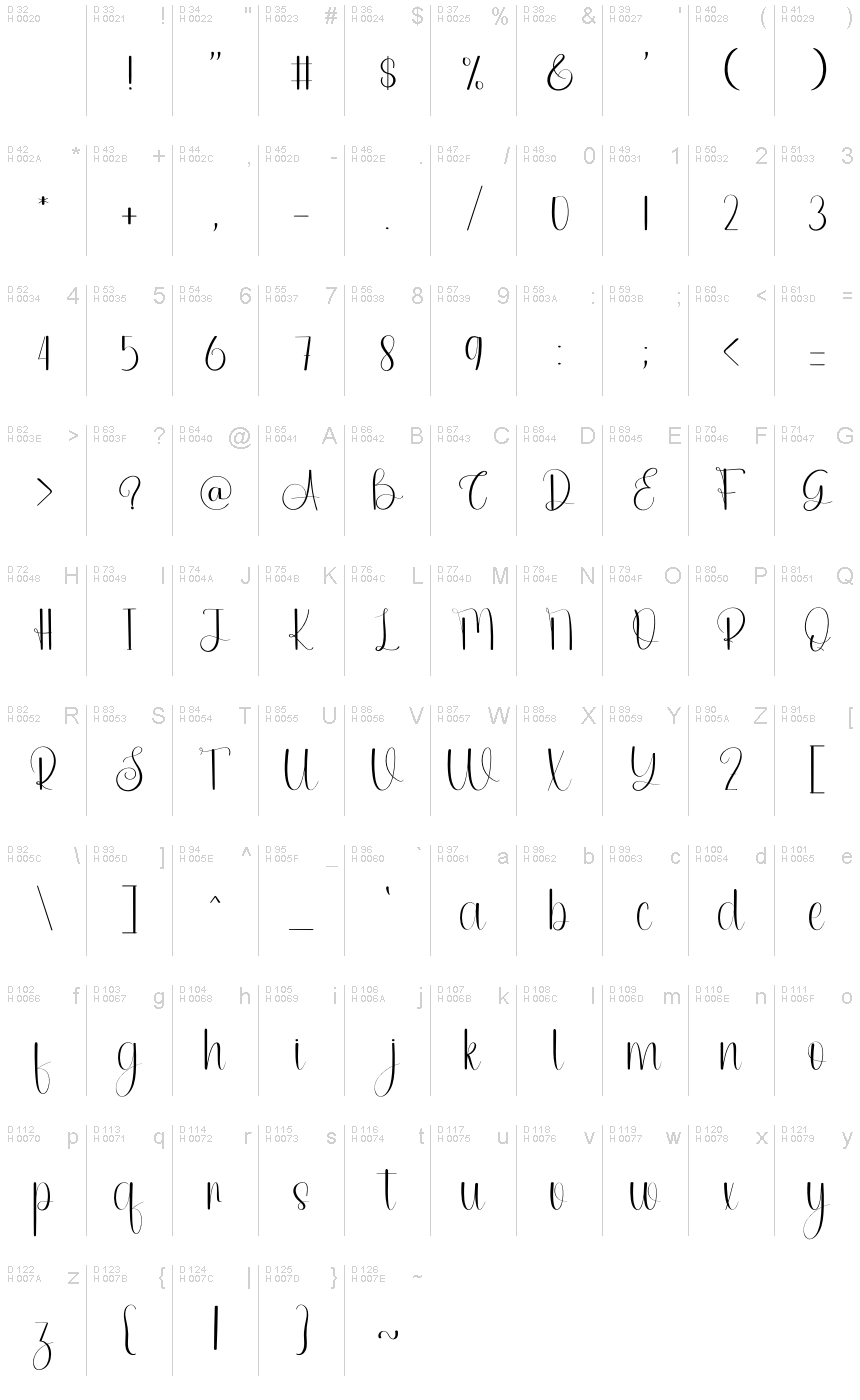
Mother Signature
Mother Signature font, crafted by PiPi Creative, is a stunning handwritten signature typeface that exudes elegance and personality. With its light style, it flows effortlessly like ink on paper, capturing a genuine, human touch. This free font is perfect for adding an artistic flair to invitations, branding projects, or any design needing a personal feel.
Its exquisite curves and delicate strokes make it ideal for creating unique logos or enhancing social media graphics. Download Mother Signature to elevate your creative projects with its sophisticated charm.